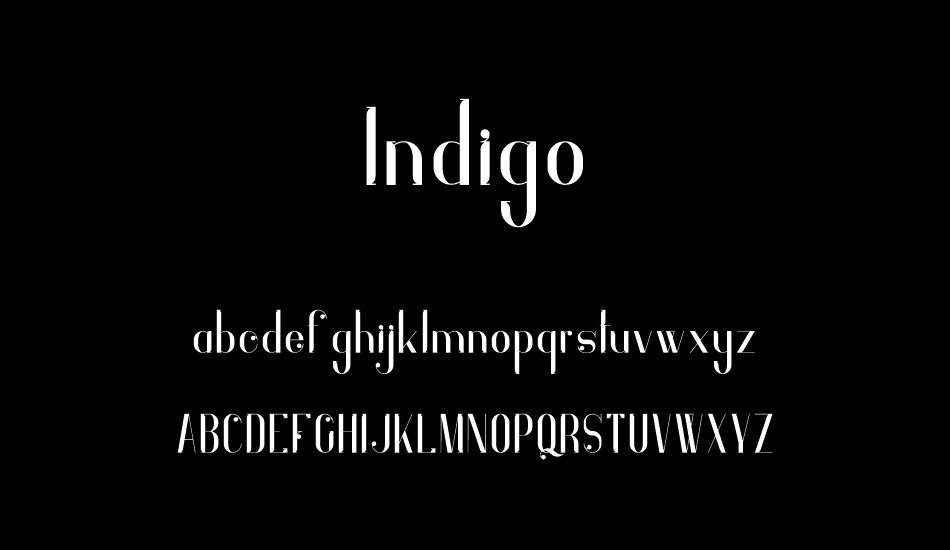
Let’s discuss the Indigo Font, a fundamental sans-serif typeface created and launched by the Salt & Pepper Designs Font Foundry.
This font comes with amazingly clean looks that you can easily use with Volkhov font and this combination can be used for a variety of different tasks for print or screen.
The usage of this typeface will help you in designing some of the amazing designs. This bold typeface provides the 70’s look to the designs and great choice for logo designing.
You will find some phenomenal clarity and a significant appearance in this typeface that when used with Southern font will take your designs to the next level and make them more remarkable.